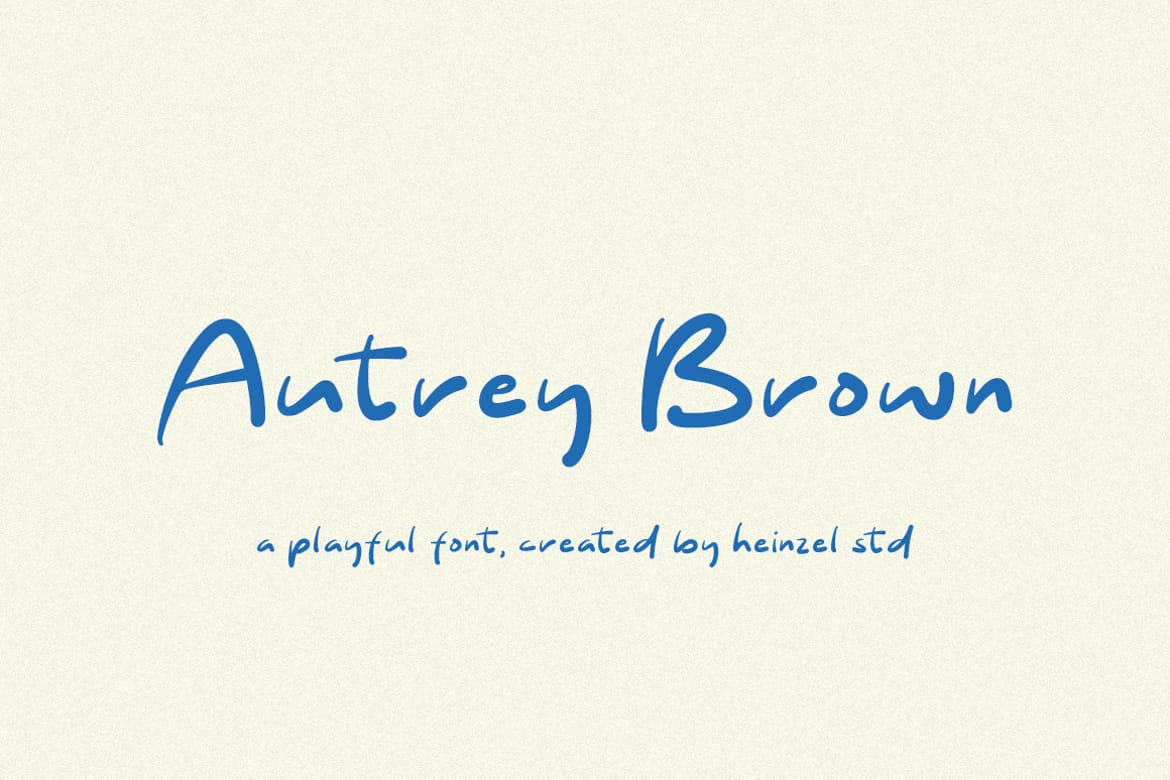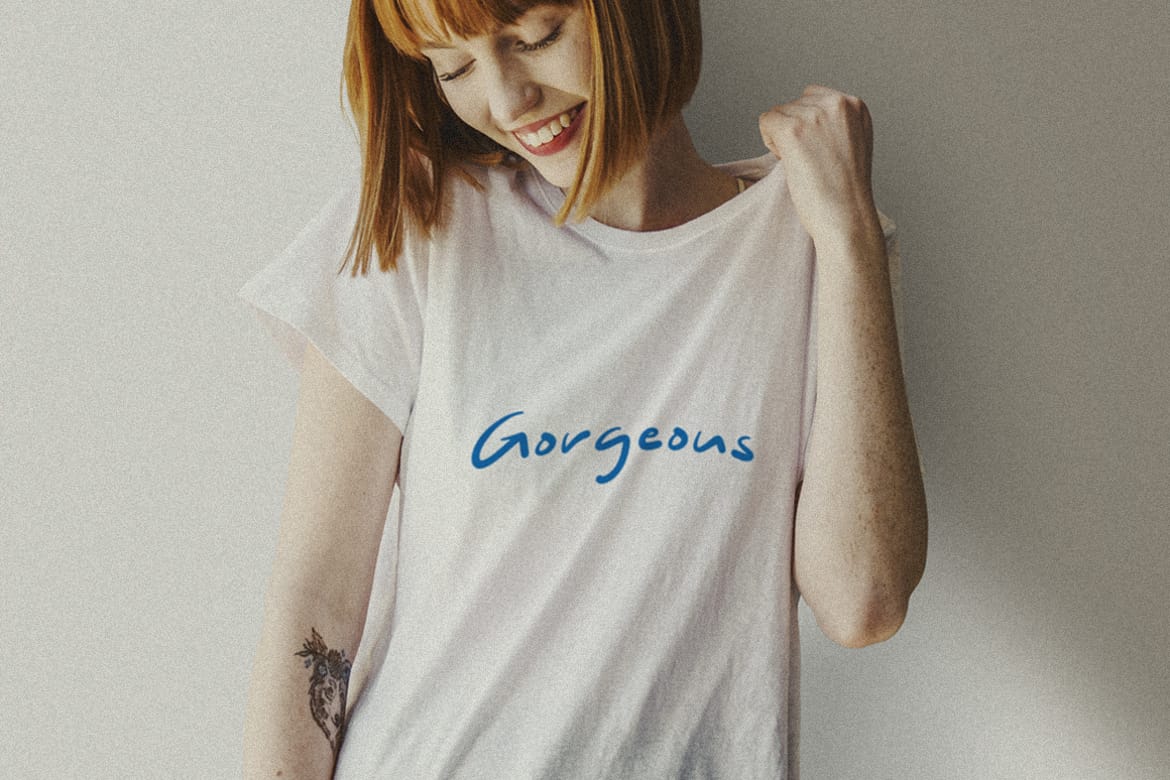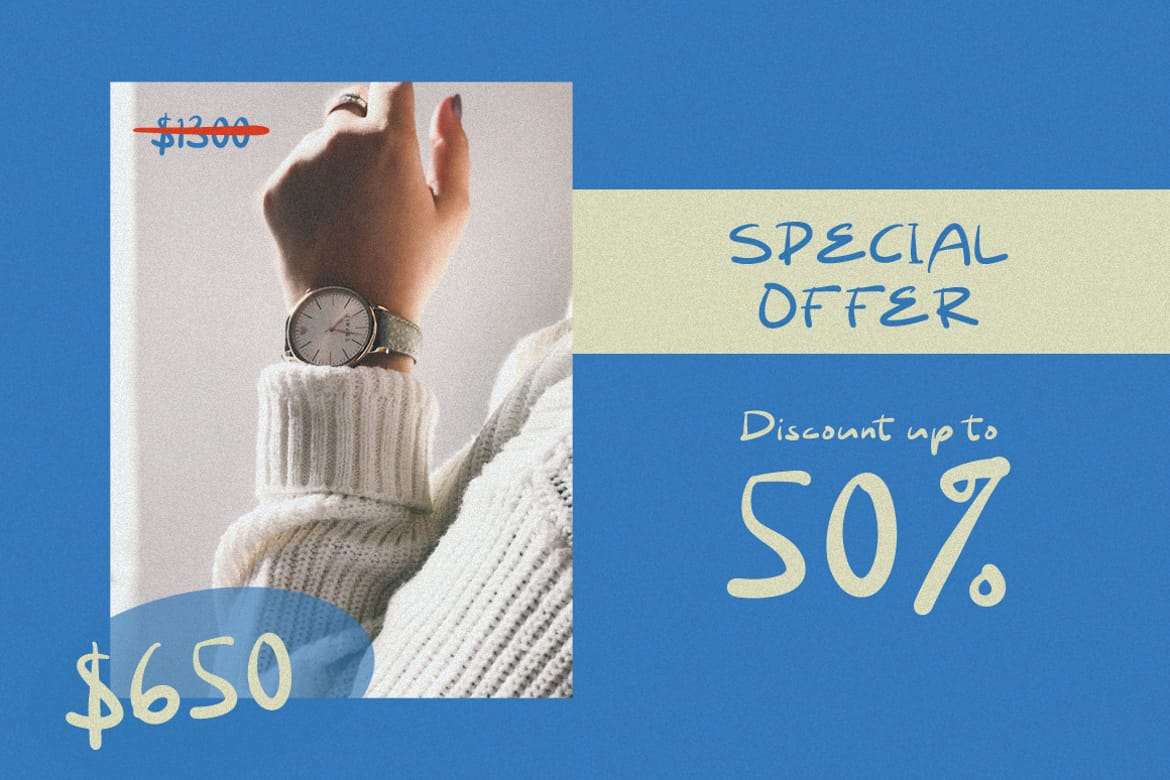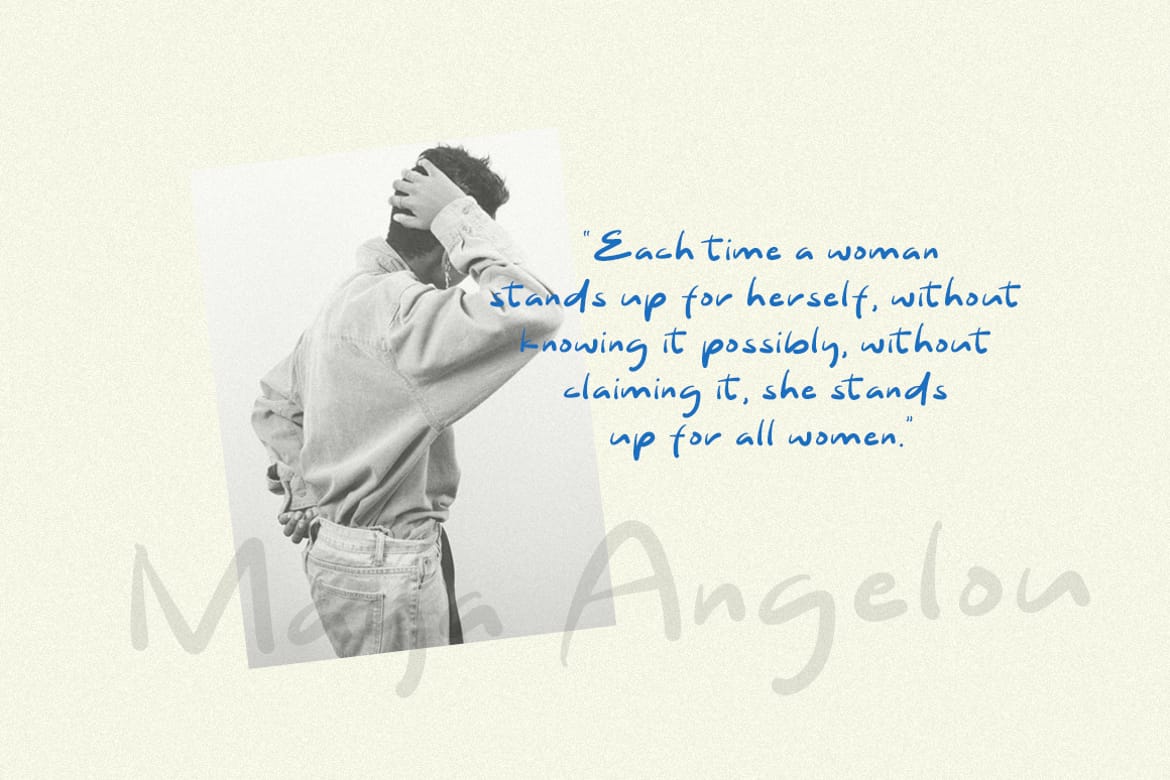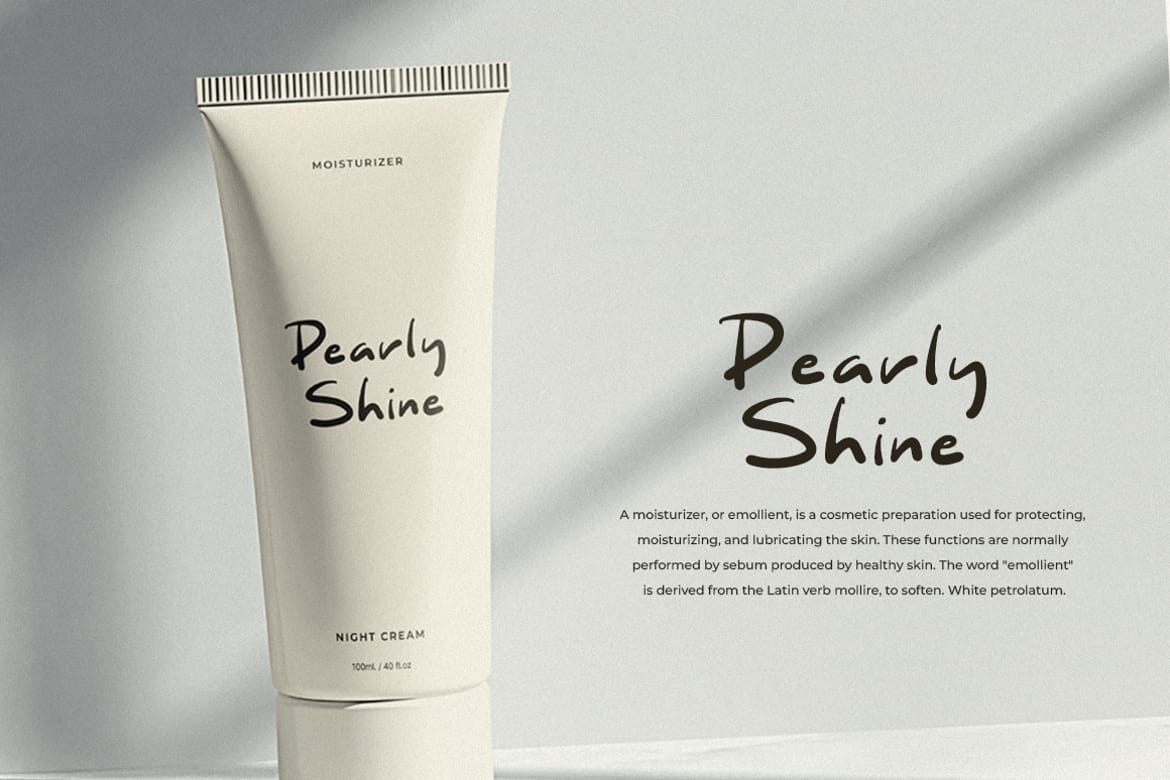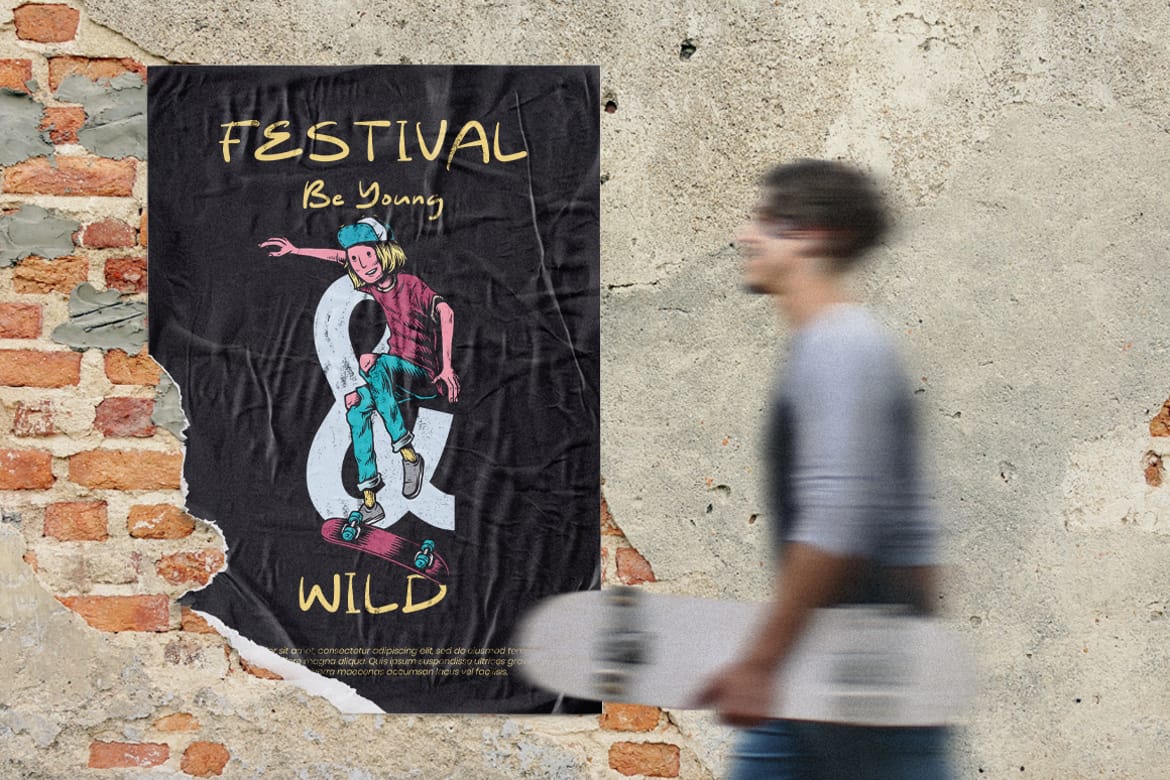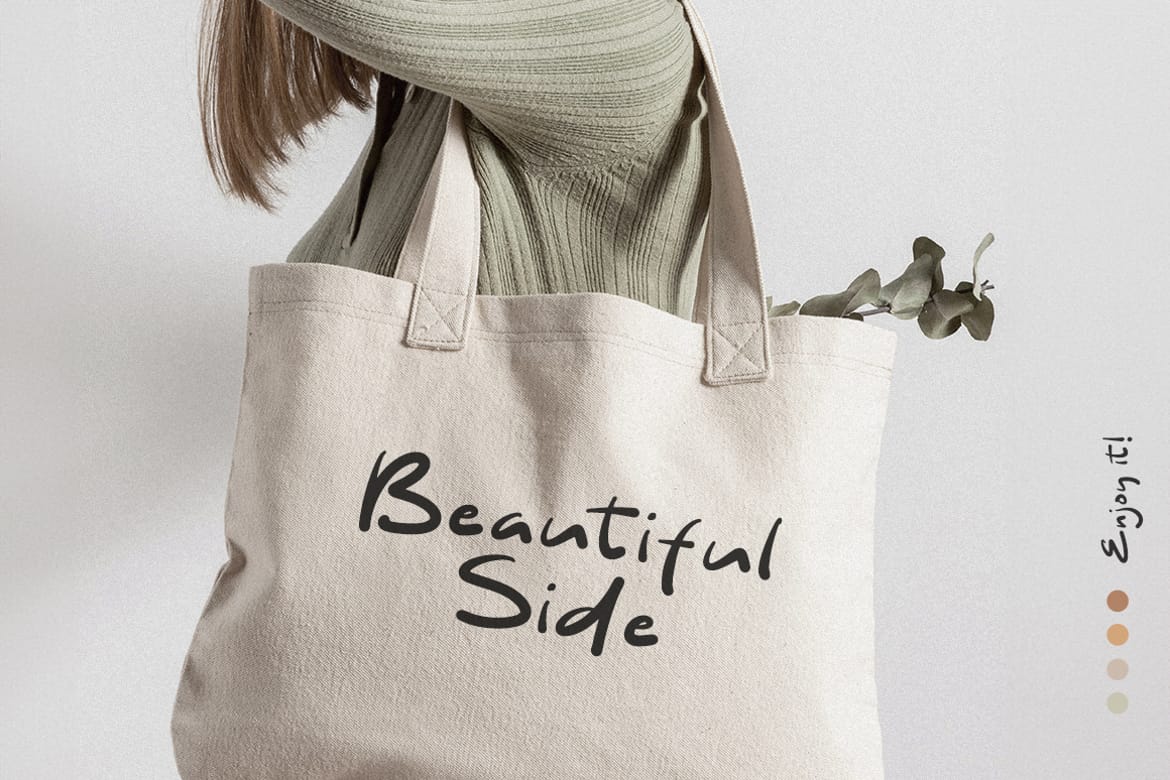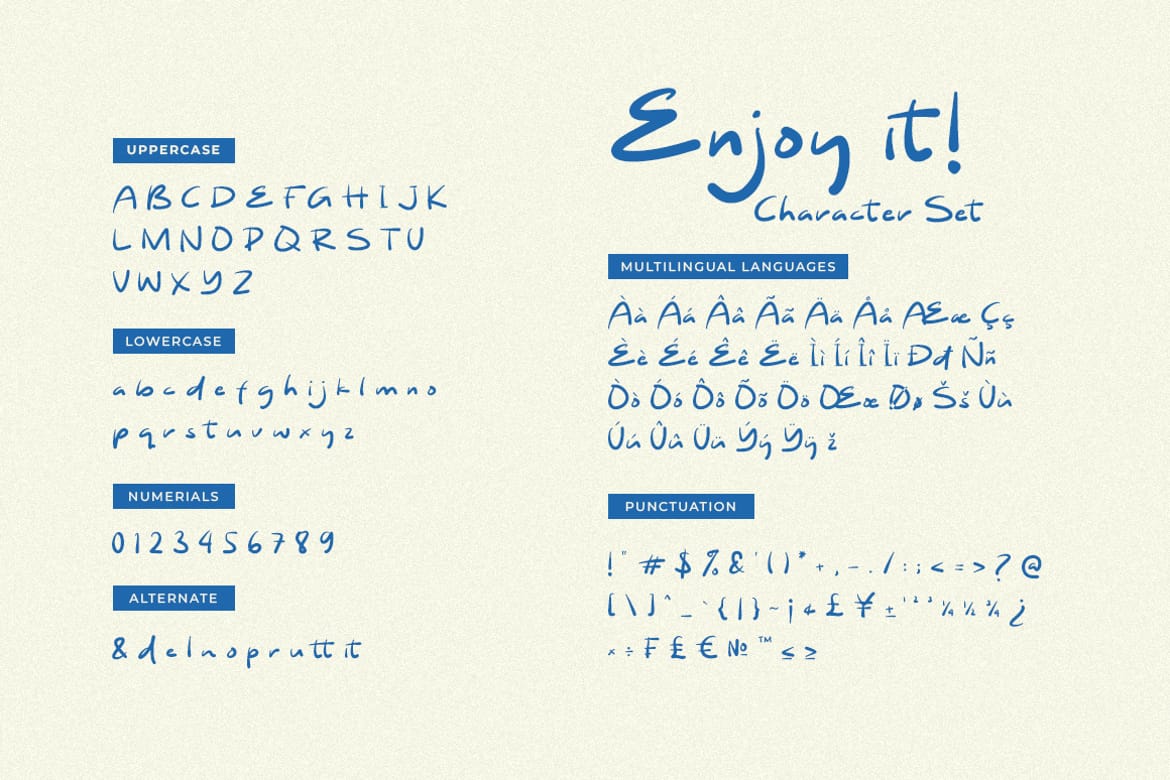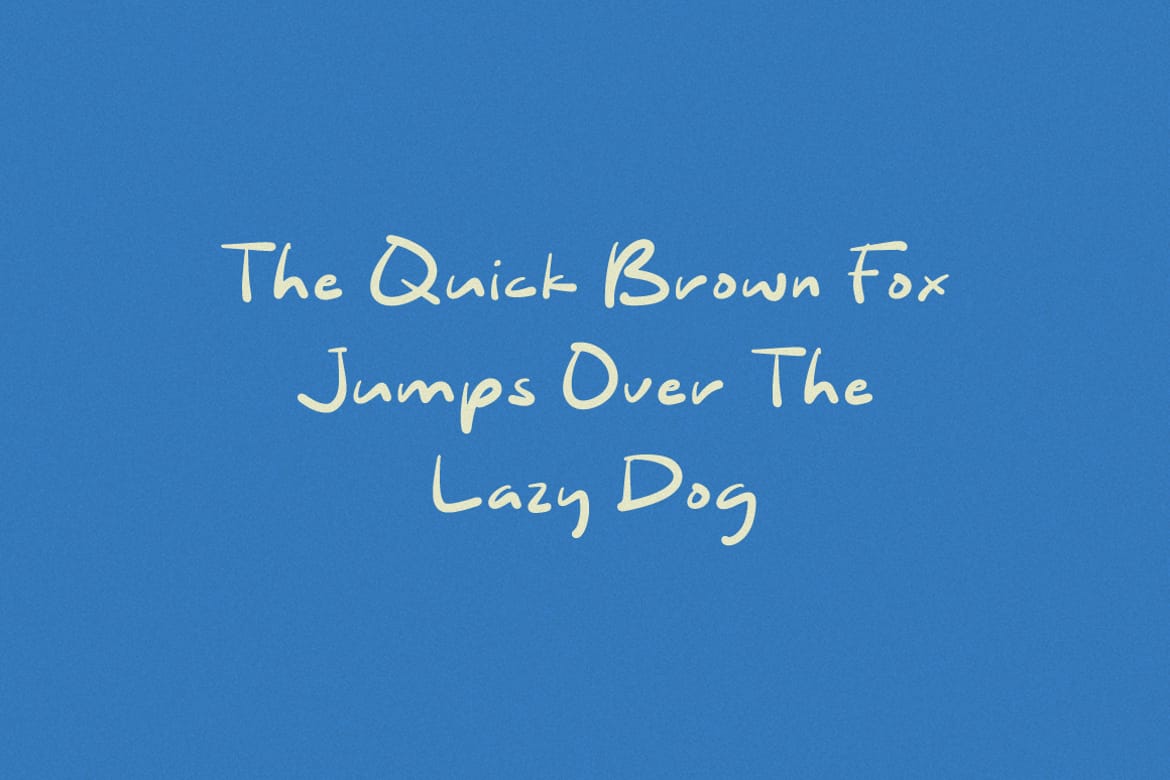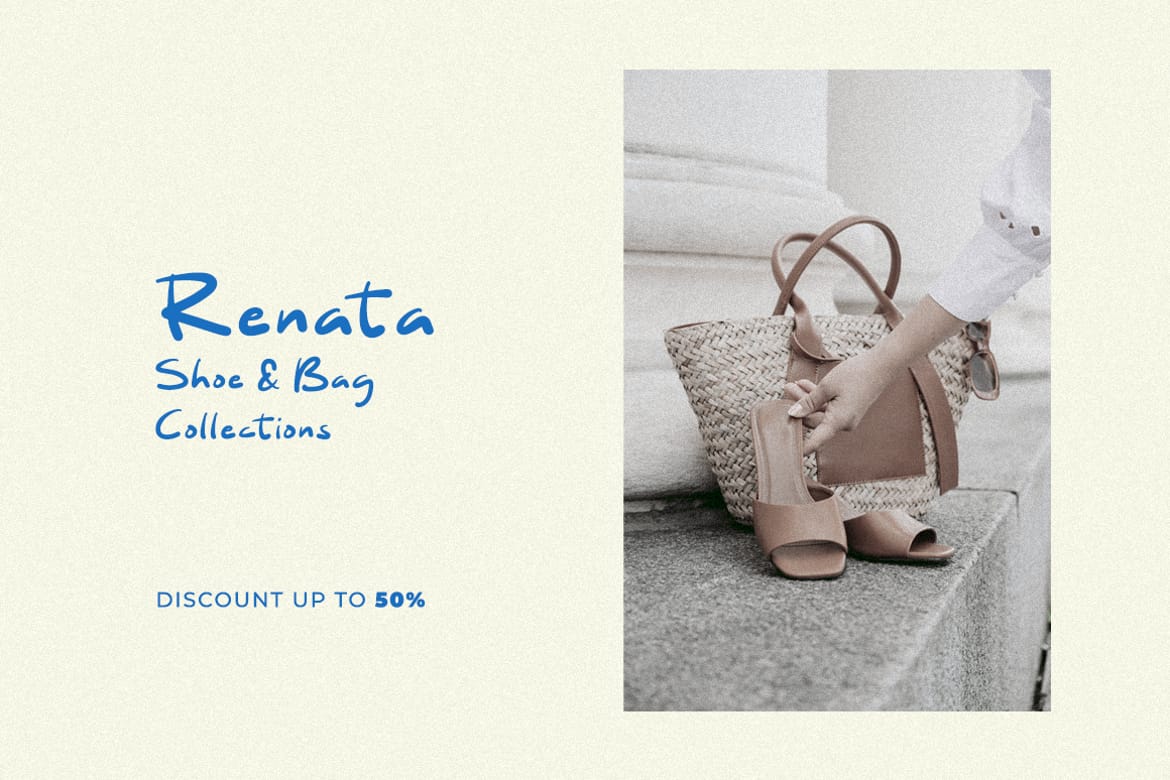
Autrey Brown is a playful handwritten font that brings a natural, friendly, and authentic feel to every design. Inspired by casual handwriting, this font features smooth curves, rounded letterforms, and a relaxed flow that makes your text look personal and approachable. Whether you're designing children's books, greeting cards, branding, social media graphics, product packaging, or creative DIY projects, Autrey Brown adds warmth and personality with effortless charm.